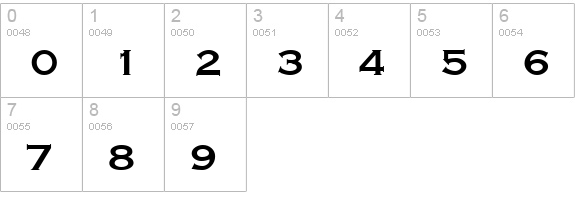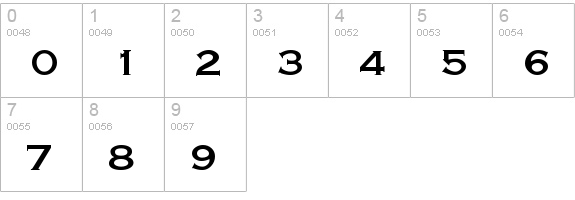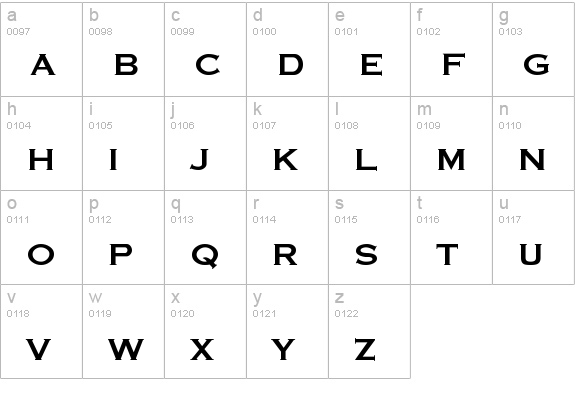
Graverplate Bold is a strong, high-contrast variant in the Graverplate typeface family \xE2\x80\x94 well suited to headlines, attention-grabbing titles, and strong calls-to-action.
Graverplate Bold font is a striking typeface that exudes elegance and sophistication. With its bold and distinctive letterforms, this font is perfect for creating eye-catching designs that demand attention. The strong lines and sharp edges of Graverplate Bold make it ideal for headlines, logos, and branding projects. What sets Graverplate Bold apart is that it is not only visually appealing but also versatile in its use. Whether you're designing a poster, a website, or a packaging label, this font will add a touch of modernity and style to your project. And the best part? Graverplate Bold is available for free download at FontsMarket.com. You can easily access this stunning font and incorporate it into your designs without any hassle. So why wait? Add Graverplate Bold to your font collection today and elevate your design projects to new heights.